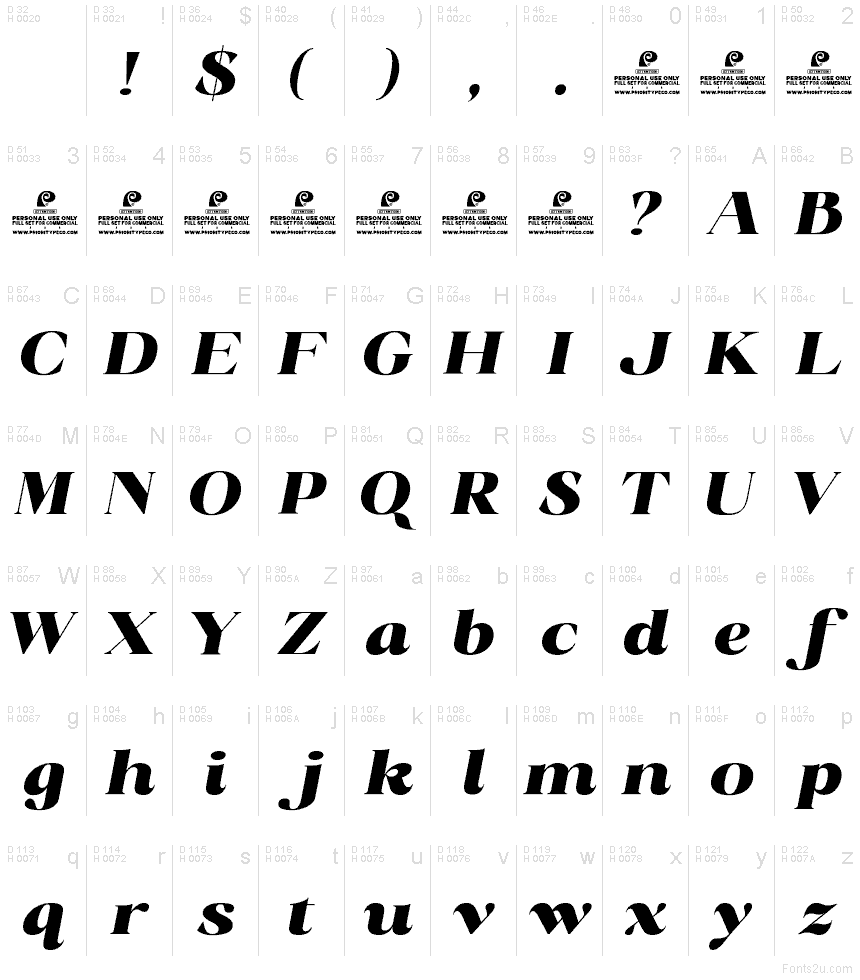
Radiant Charisma DEMO ExtBd Ita
Radiant Charisma ExtBd Ita font by Prioritype Co is an elegant expanded serif with a refined appearance and classical flair. This italicized masterpiece exudes sophistication, making it an ideal choice for turning any project into a captivating expression of art.